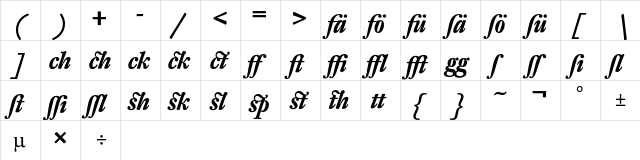
DTL Fleischmann T Alt Bold Italic Font Preview
Design Context for DTL Fleischmann Typeface
DTL Fleischmann takes a measured approach to typography — its balanced proportions and neutral character make it a reliable workhorse for both digital and print work. The slanted form adds forward momentum and visual energy. The heavy weight commands attention and anchors typographic hierarchies.
Pro Tip: Try DTL Fleischmann for annotation and caption copy alongside an upright companion — the contrast in angle creates a dynamic but ordered typographic system.